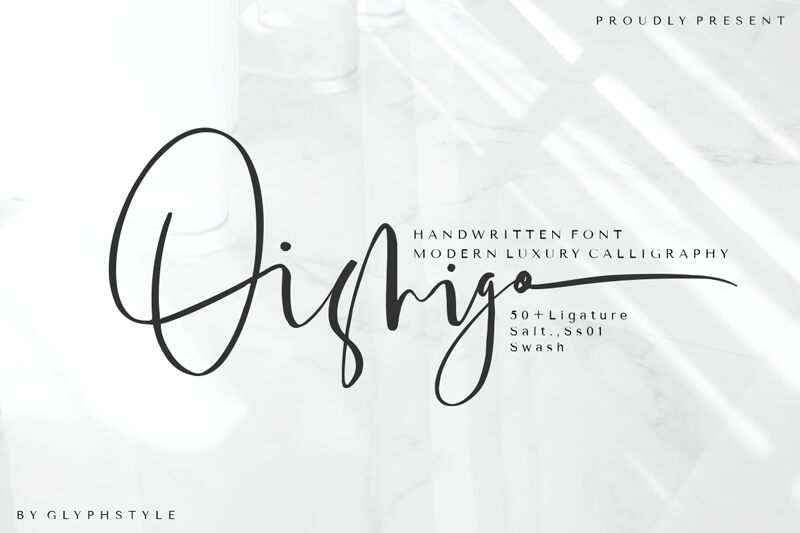
Oishigo Demo
Oishigo, the delightful handwritten signature font by GlyphStyle, is perfect for adding a personal touch to your creative projects. Its light weight gives it an airy and elegant feel. Use it for wedding invitations, branding projects, social media graphics or anything that needs a touch of sophistication. Oishigo's flowing strokes will make your text stand out and add a sense of warmth to your designs. Let this charming typeface elevate your work to new heights with its unique style and personality.